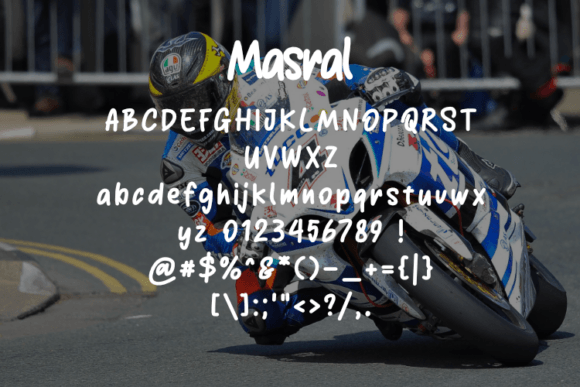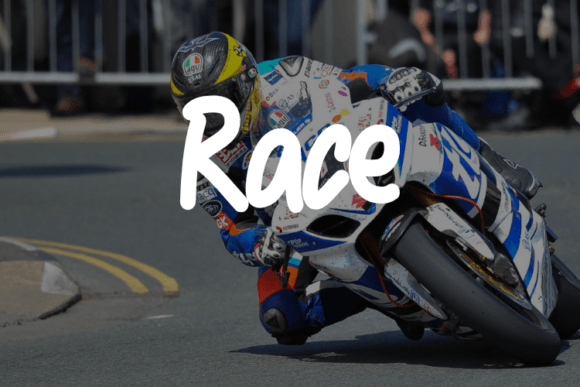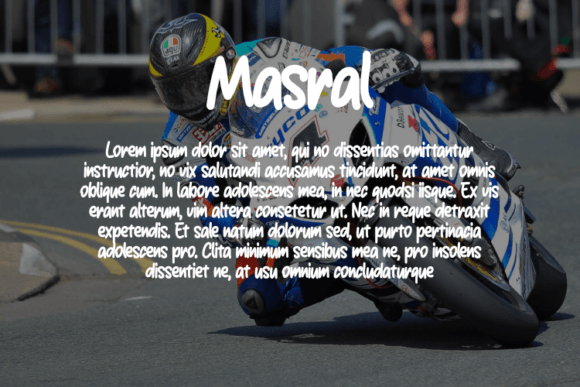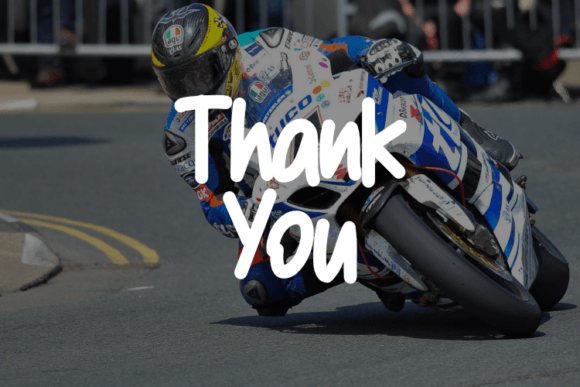
Unleashing Your Creativity with Masral Font
Have you ever stared at a blank design canvas, feeling the creative juices flowing but struggling to bring your vision to life? That’s where the perfect design resource comes in – and for many, it’s the Masral Font. This versatile font has been making waves in the design community, offering a fresh take on apparel design and beyond.
As a designer, you’re constantly on the lookout for high-quality tools to elevate your creative project. With Masral Font, you’ll find a reliable companion that integrates seamlessly with your favorite design software. Whether you’re working on a t-shirt design or a product that requires a stylistic edge, Masral Font has got you covered. And the best part? It’s available for a free download, complete with a transparent background that makes it easy to work with.
What sets Masral Font apart is its ability to transcend the ordinary, redefining style one character at a time. So why settle for anything less when you can unleash your full creative potential with this incredible design resource?
Key Features of Masral Font
- Unique, elegant font style with a transparent background, ideal for various design applications.
- Supports a wide range of languages, making it a versatile design resource for international projects.
- High-resolution design, suitable for print and digital applications, including business cards, logos, and signage.
- Perfect for designers and artists looking for a high-quality, free font to enhance their creative projects.
- Available in a range of sizes, from small to large, to suit various design needs and applications.
Honest Review: Masral Font
I recently had the chance to work with the Masral Font, and I have to say it’s been a game-changer for my creative projects. As a designer, I’m always on the lookout for high-quality fonts that can elevate my designs and make them stand out.
- What works well: The Masral Font is incredibly versatile and can be used for a wide range of creative projects, from logos to digital designs. It’s also available for free download, which is a huge bonus for designers on a budget.
- What works well: The font’s transparent background makes it easy to combine with other design elements and create visually appealing compositions.
However, I do have a few minor complaints. ⚠️ One of the limitations of the Masral Font is that it’s not as extensive as some other fonts in terms of its character set. This can make it a bit tricky to use for complex projects.
Overall, I’m really impressed with the Masral Font. It’s a great design resource for anyone looking to add some creativity and flair to their projects. While it may have some limitations, its high-quality design and versatility make it well worth checking out.
Masral Font: A High-Quality Design Resource
The Masral Font is a versatile and stylish font perfect for any creative project. With a transparent background, it can be easily integrated into various design platforms.
Tips for Getting the Most Out of Masral Font
Experiment with different font sizes and styles to find the perfect combination for your design. You can also pair the Masral Font with other fonts to create a unique look.
The Masral Font is ideal for various design projects, including logos, business cards, brochures, and social media graphics. Its high-quality design makes it a popular choice among designers.